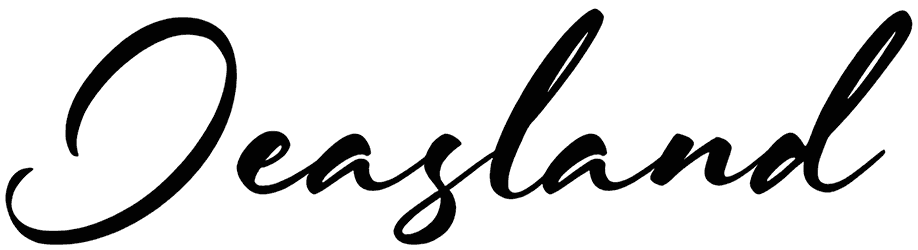
Jeasland Font
When you look at the Jeasland font, its elegant design grabs your attention. This script font has an attractive style that seems memorable to the viewers. You may use it for several situations, such as magazines, postcards, and advertisements, but it does not support numbers.
This handwritten font’s letters have smooth edges with a curly shape, creating a friendly feeling. Moreover, letters aren’t entirely strict and have thin tails that give an entertaining look; however, they’re a bit hard to read.